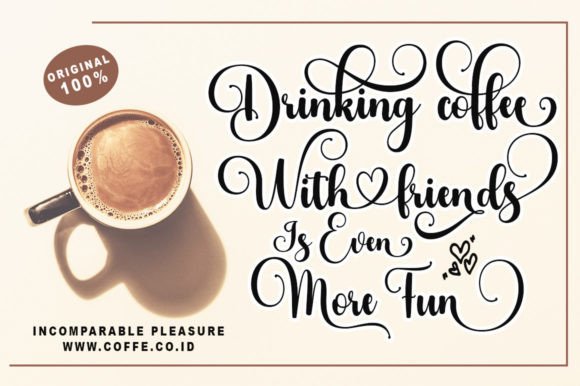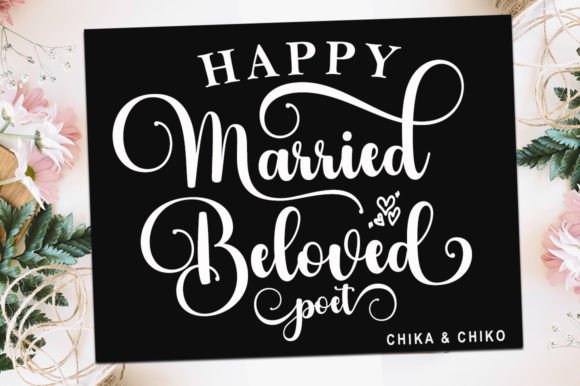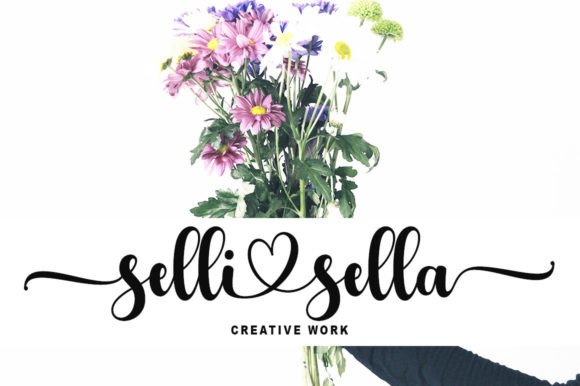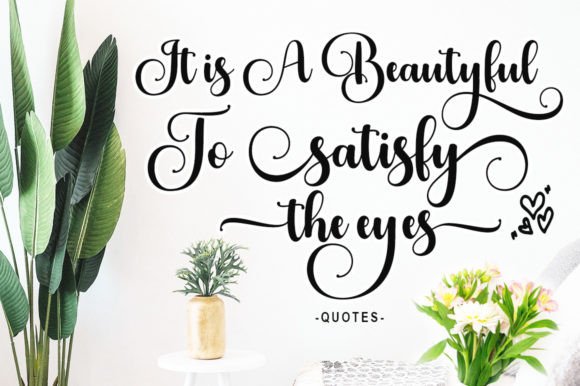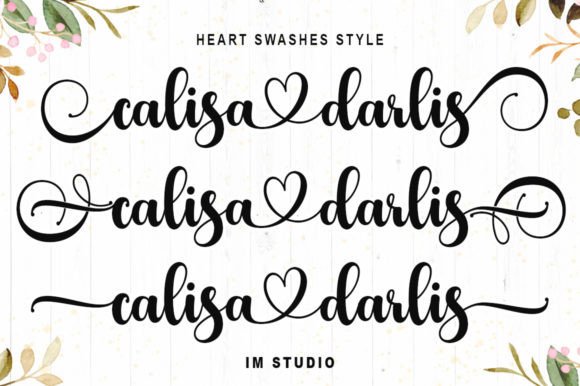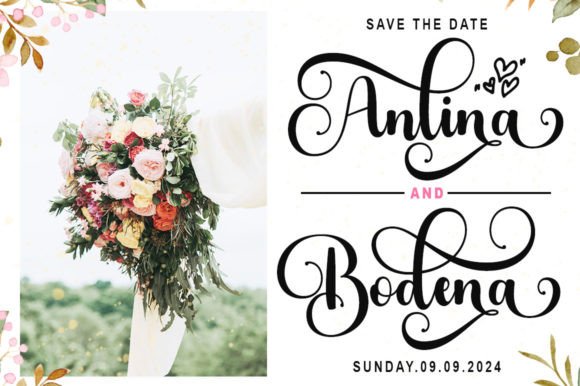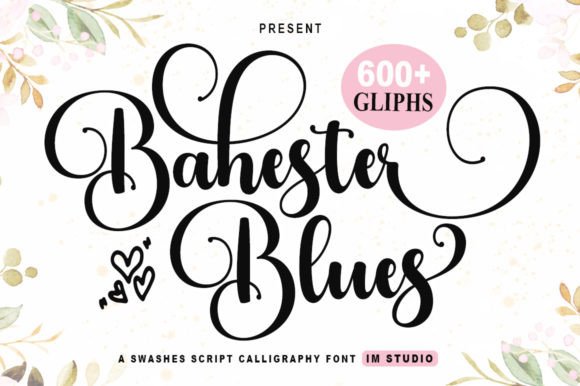
Bahester Blues Font: Elevate Your Designs with Elegance and Style
In the world of design, fonts play a crucial role in conveying the tone and aesthetic of a project. For those seeking a touch of elegance and sophistication, the Bahester Blues font is an exceptional choice. This stylish and incredibly elegant handwritten font is perfect for designers and crafters looking to add a personal touch to their creations.
The Beauty of Bahester Blues
Bahester Blues is a stunning handwritten font that exudes refinement and poise. Its elegant strokes and beautiful letterforms make it an ideal choice for a variety of design projects, including wedding invitations, thank you cards, quotes, greeting cards, logos, business cards, and more. Whether you’re a professional designer or a crafty DIY enthusiast, this font is sure to impress.
One of the standout features of Bahester Blues is its versatility. This font can be used for a wide range of projects, from formal events like weddings and galas to more casual designs like social media graphics and blog posts. Its elegant and approachable style makes it easy to pair with other fonts and design elements, ensuring that your creations will always look polished and professional.
Bahester Blues is PUA (Private Use Area) encoded, which means that you can access all of the glyphs and alternates with ease. This feature makes it simple to customize your designs and add unique touches that set your work apart. With PUA encoding, you can effortlessly navigate the font’s extensive character set and create stunning designs that showcase your creativity.
Whether you’re a seasoned designer or a crafty DIY enthusiast, Bahester Blues is an excellent addition to your font collection. Designers will appreciate the font’s high level of elegance and sophistication, while crafters will love the ease of use and flexibility that PUA encoding provides. This font is perfect for:
- Quotes and inspirational graphics
Why Choose Bahester Blues?
With so many fonts available, why choose Bahester Blues? Here are just a few reasons why this font stands out:
- Elegance and sophistication: Bahester Blues is a truly elegant font that adds a touch of refinement to any design.
- Versatility: This font can be used for a wide range of projects, from formal events to casual designs.
- Easy to use: PUA encoding makes it simple to access all of the glyphs and alternates.
- High-quality design: Bahester Blues is a beautifully crafted font with exquisite attention to detail.